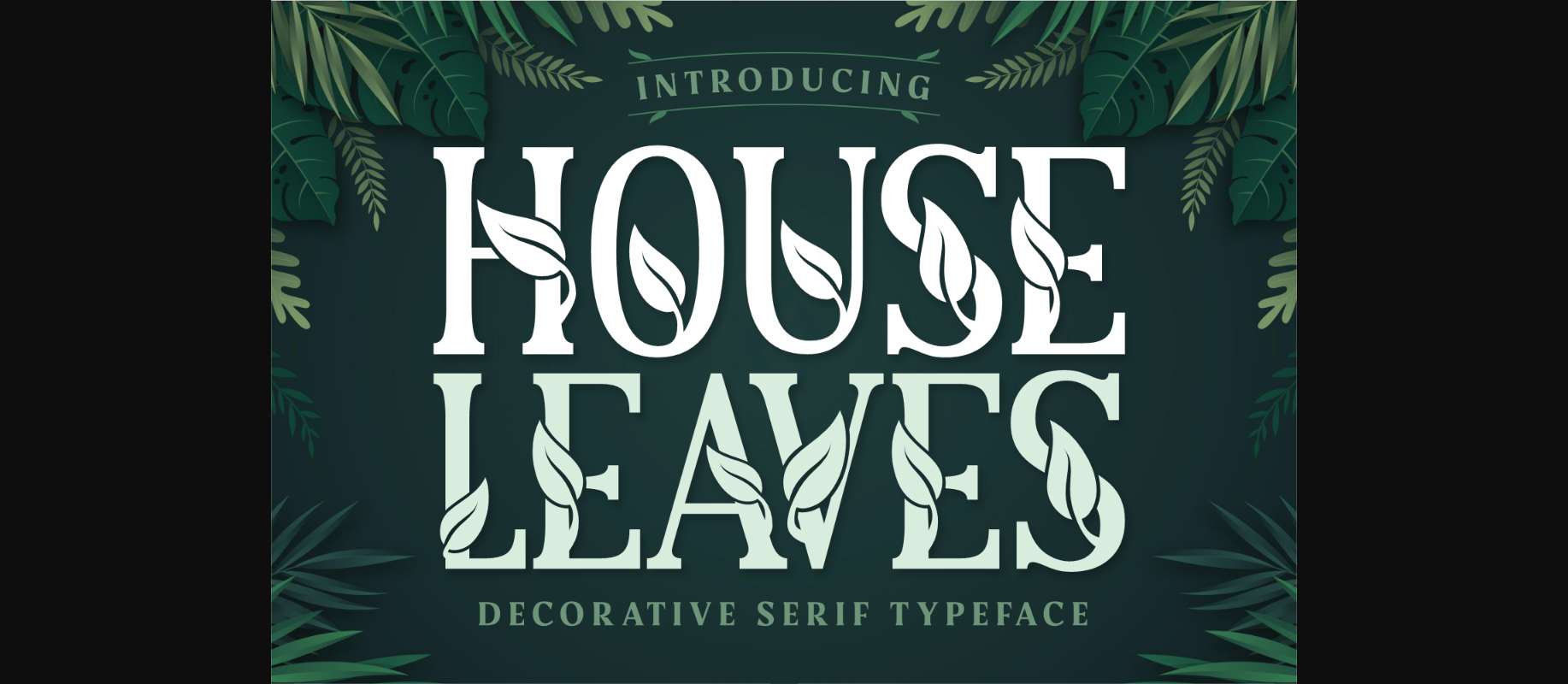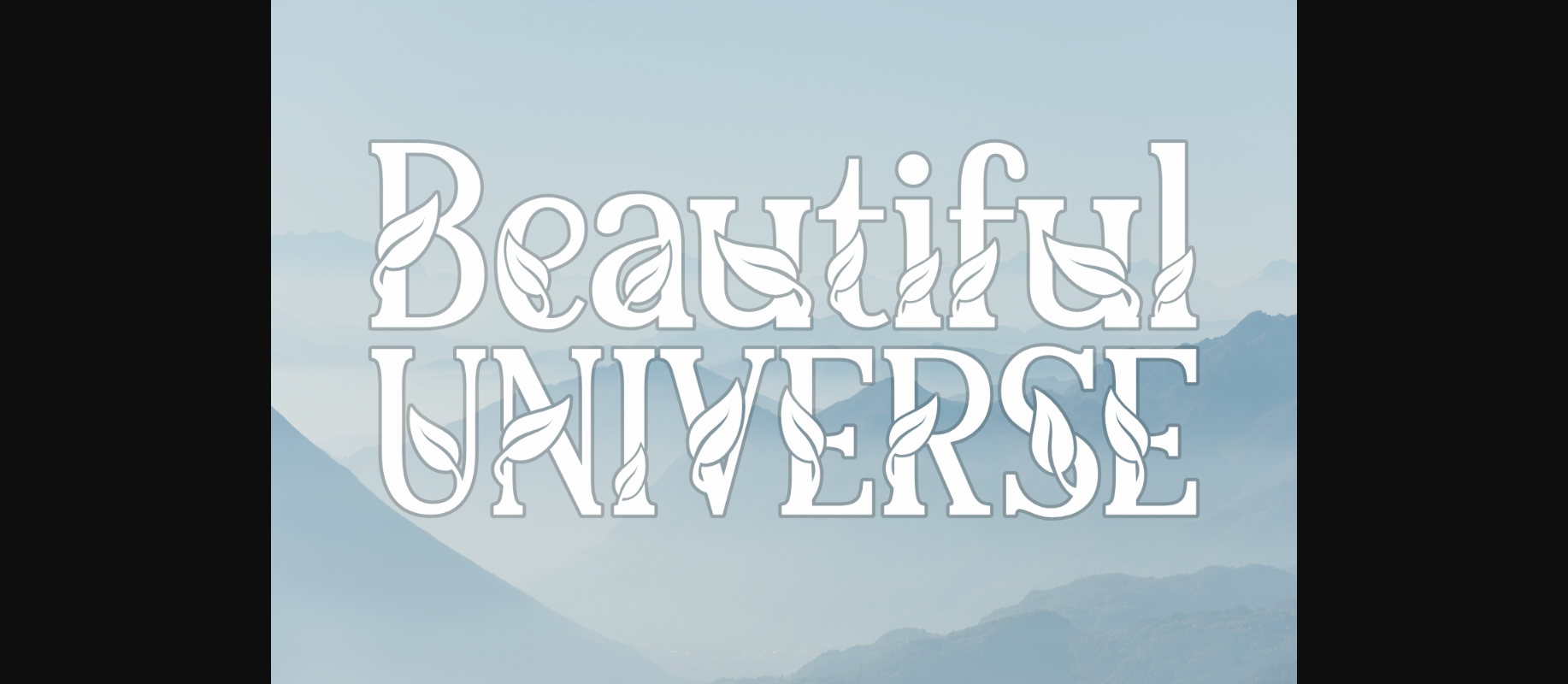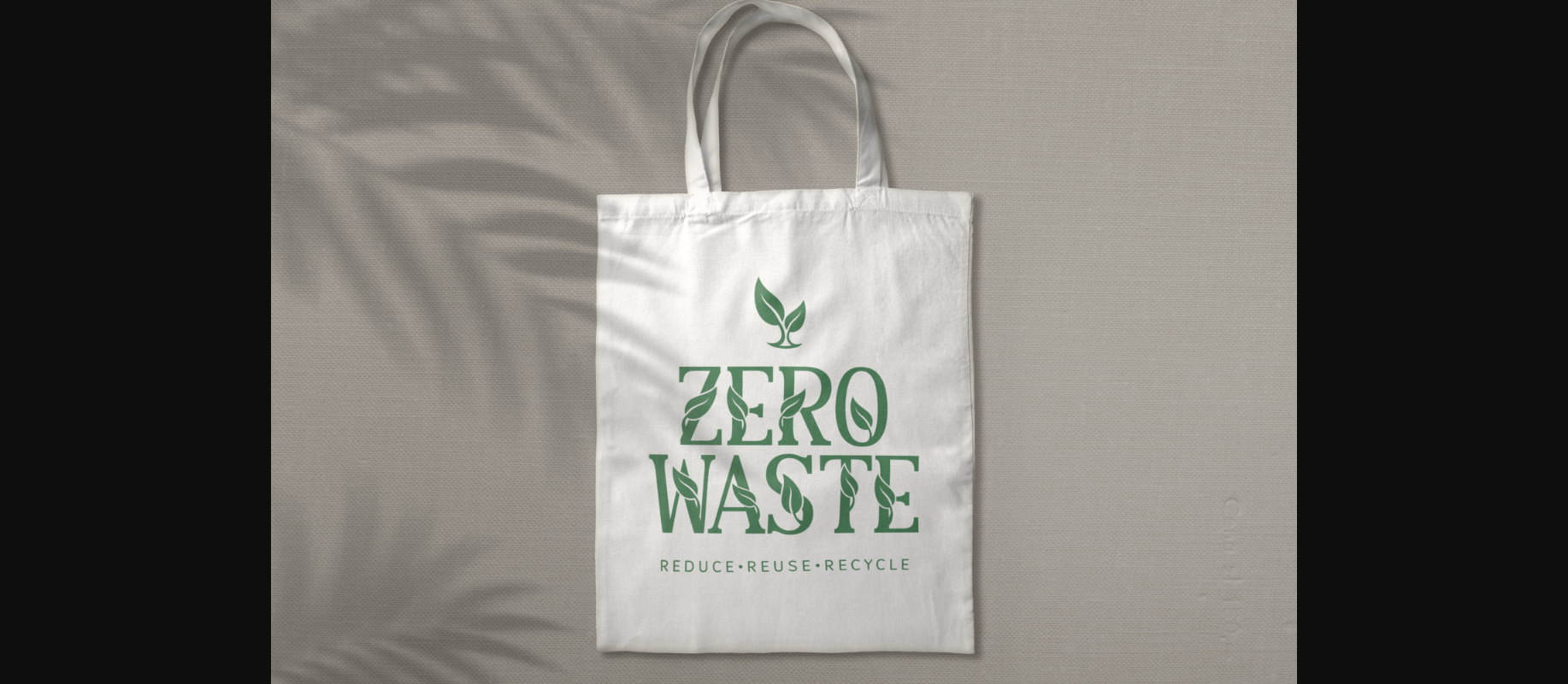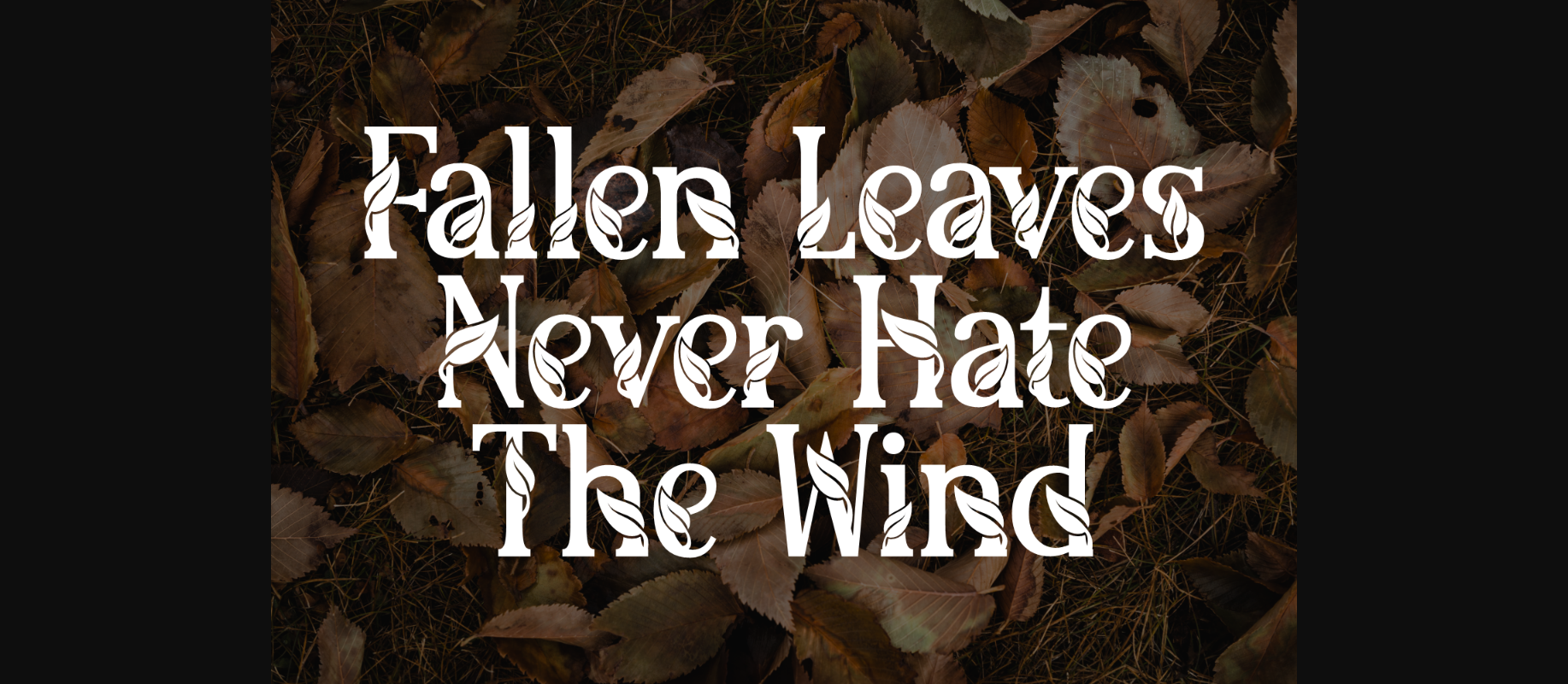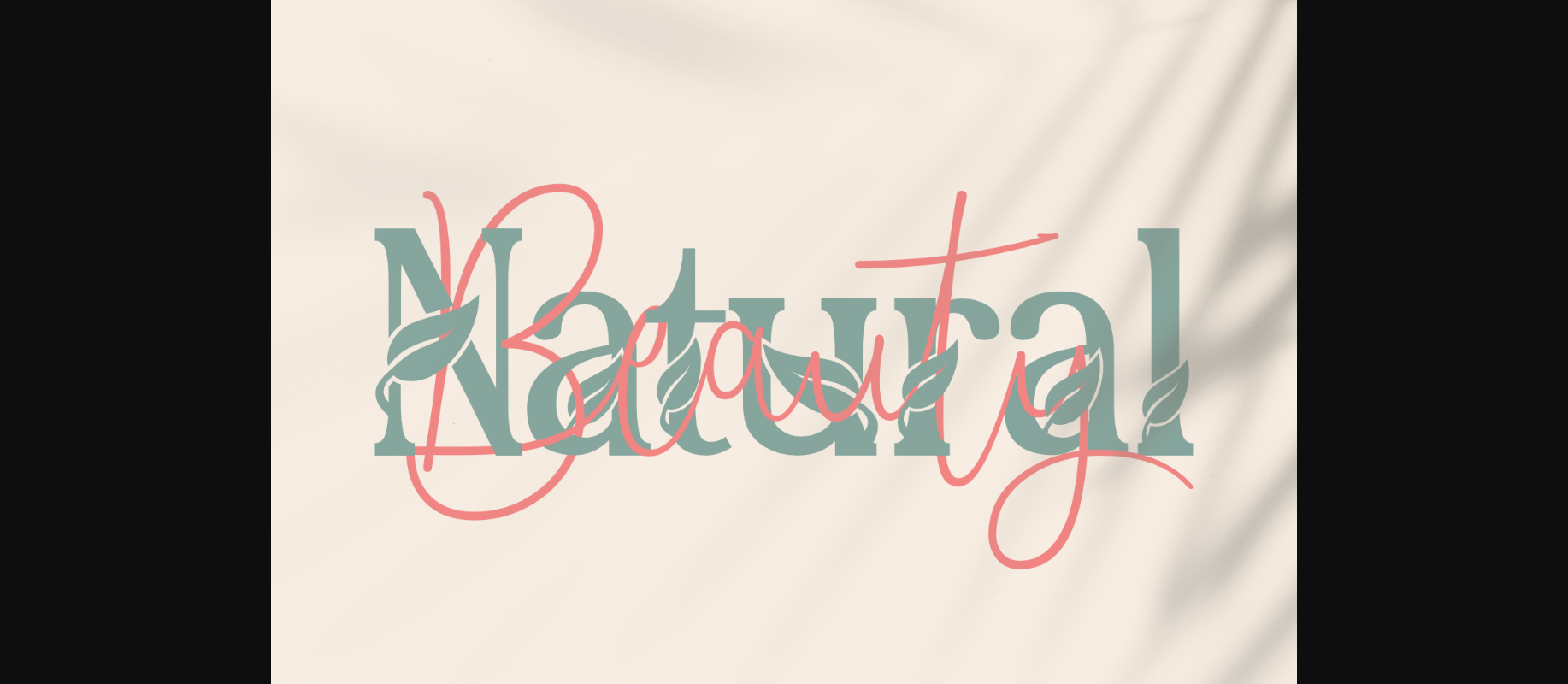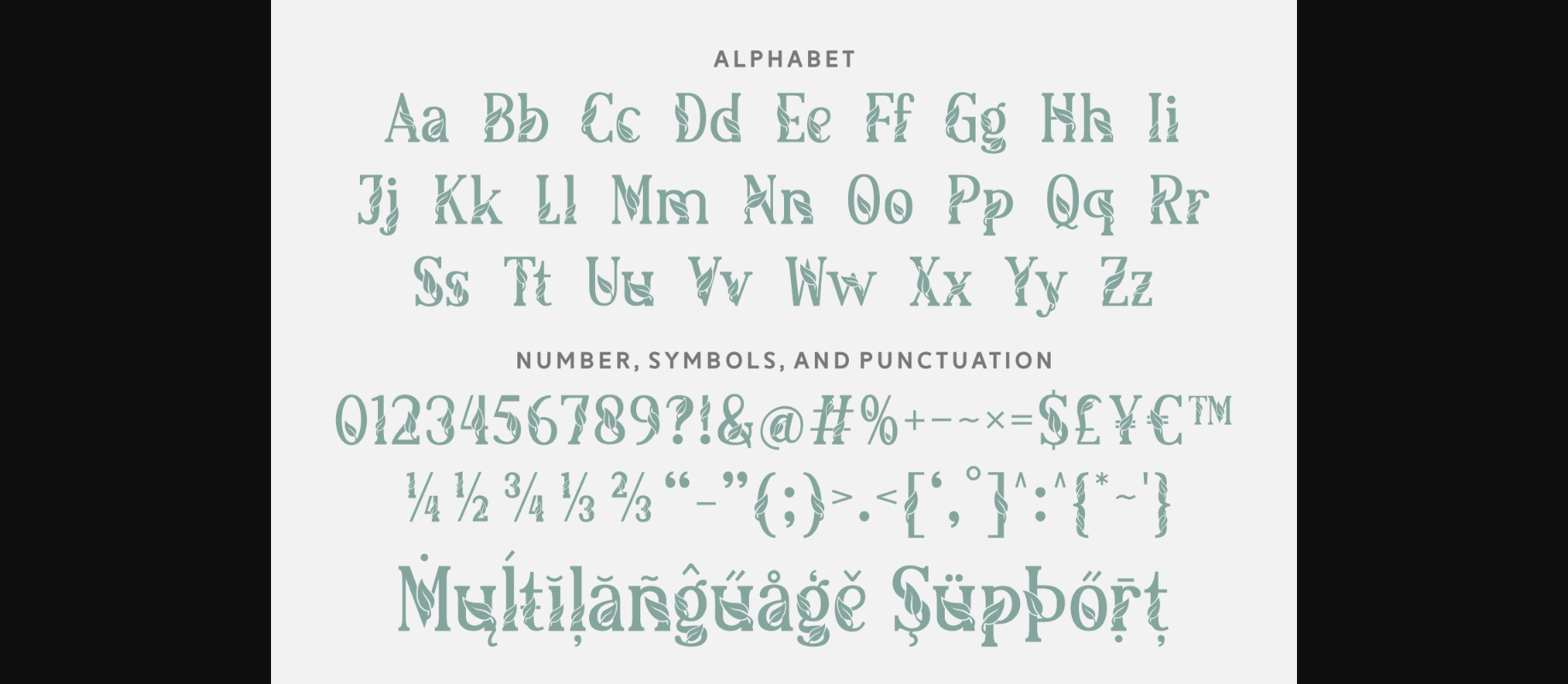
House Leaves Font
About House Leaves Font
House Leaves is a decorative serif font with a nature-inspired design. Each character features lovely leaves details. You can use this serif font for logos, branding, wall art, signs, cards, art prints, t-shirts, and art prints.